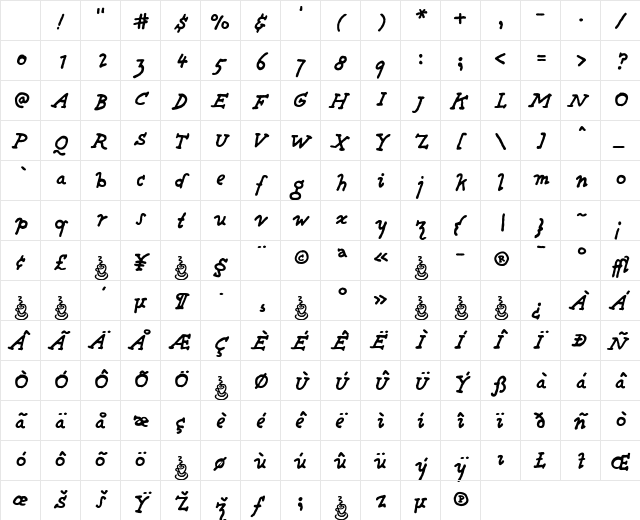
Complete Providence Bold Italic glyph index. Displaying only characters natively supported by Providence Bold Italic font.
Providence is a composed and adaptable typeface that performs quietly and consistently across a wide range of design contexts. The slanted form adds forward momentum and visual energy. Its bold stroke weight gives it real presence on the page.